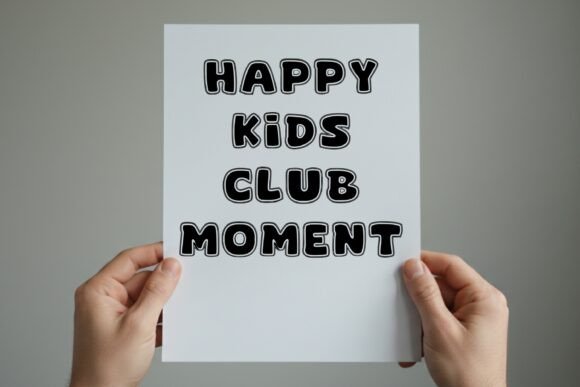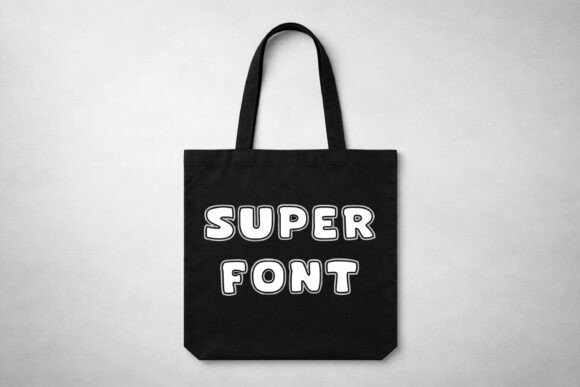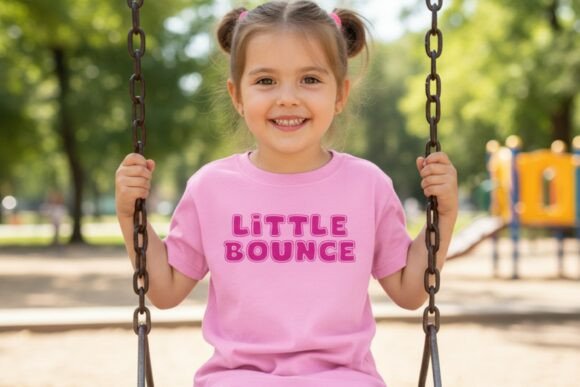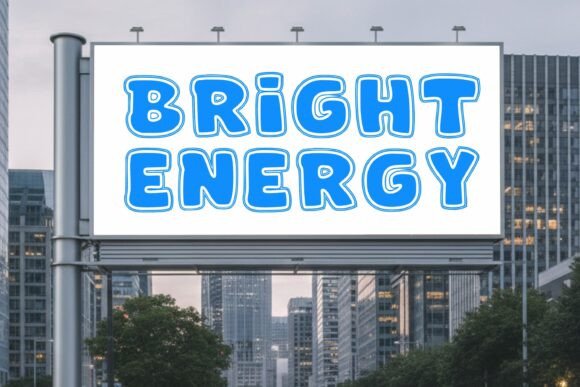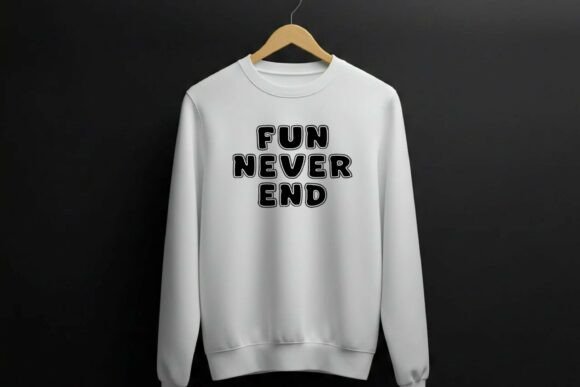
Introduction to Kiddie Scribble Font
Kiddie Scribble is a delightful display font that captures the charm of childlike handwriting with a bold, bubbly twist.
Its rounded shapes, sketch-style outlines, and playful personality make it ideal for designs that need a fun and energetic vibe Perfect for childrenโs books, school-themed projects, birthday invitations, posters, and branding, Kiddie Scribble adds a joyful and creative touch to any layout.
Key Features of Kiddie Scribble Font
Why Choose Kiddie Scribble Font?